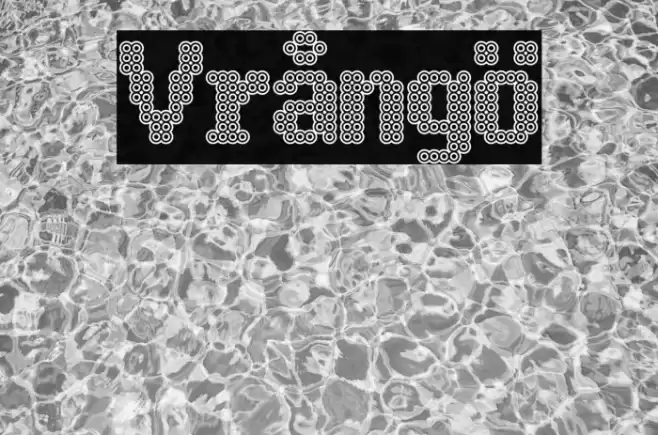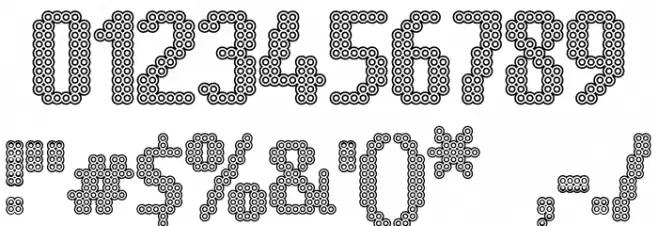
Vrångö Font
Vrångö Description
This font features a unique and playful design, characterized by its use of small circular patterns to form each letter and number. The circles are arranged in a grid-like fashion, creating a textured and decorative appearance. The font maintains a consistent structure across uppercase, lowercase, and numerical characters, ensuring readability while adding a distinct visual flair. The special characters are also designed with the same circular motif, making them cohesive with the rest of the font. This style is eye-catching and suitable for creative projects that require a fun and engaging typeface.
A playful, decorative font with circular patterns forming each character from Uncategorized fonts.